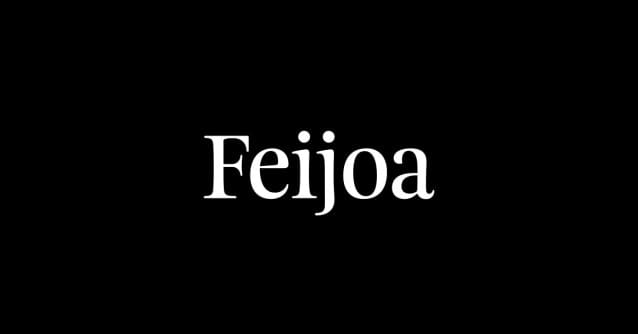
Feijoa Font
Feijoa Font is the first typeface issued by the Klim Type Foundry. It’s based on the principle that ‘a straight line is a dead line’, which explains the warm, curvaceous nature of the individual letterforms. This relieves it from the sharp points and angles that can be detrimental to digital typefaces and works to humanise the overall visual impression. The core of the Feijoa family — Medium, Italic and Bold — are the text weights, useful for book typography and extended periods of reading. The Display is drawn specifically for headlines, effective for sizes 16pt and larger. All styles include several fanciful ligatures inspired by the wonderful Mrs Eaves, designed by Zuzana Licko.